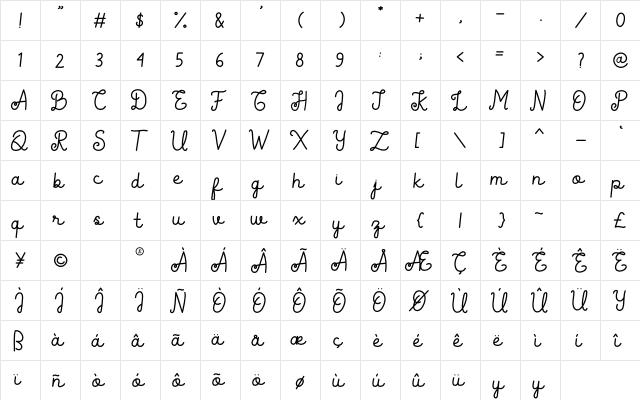
Calittra Regular
Design Context for Calittra Typeface
Calittra is a composed and adaptable typeface that performs quietly and consistently across a wide range of design contexts.